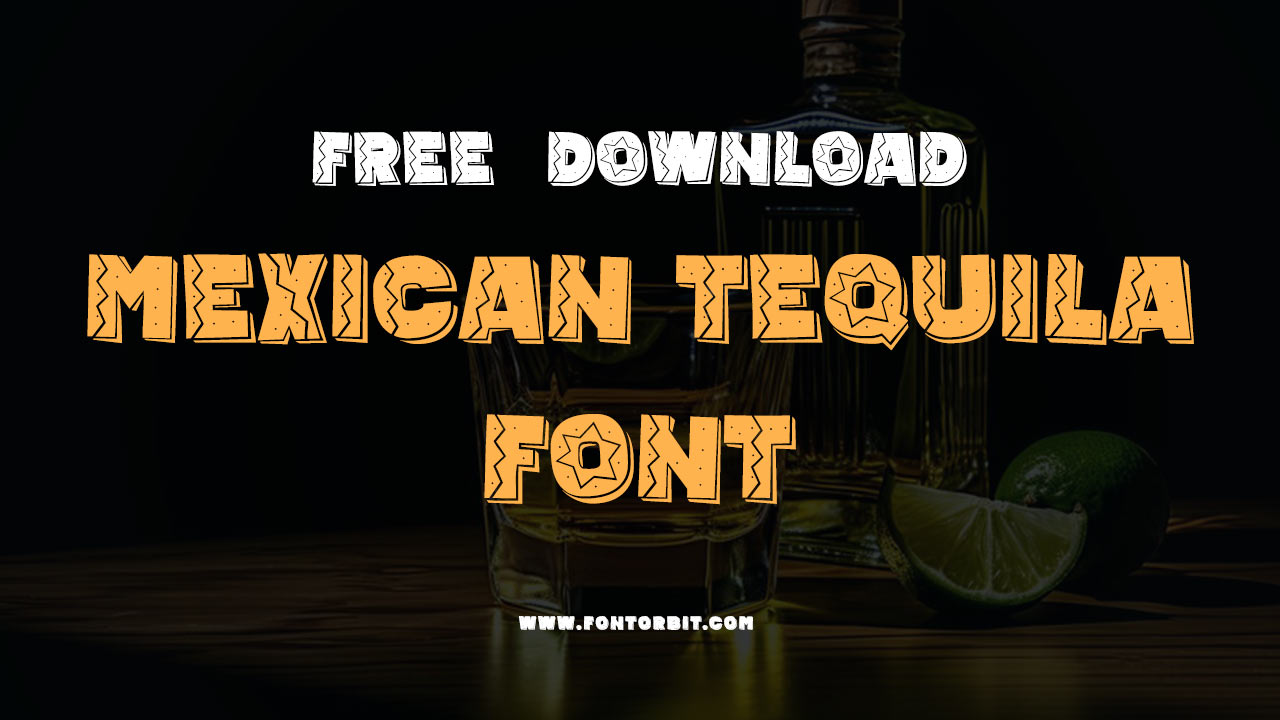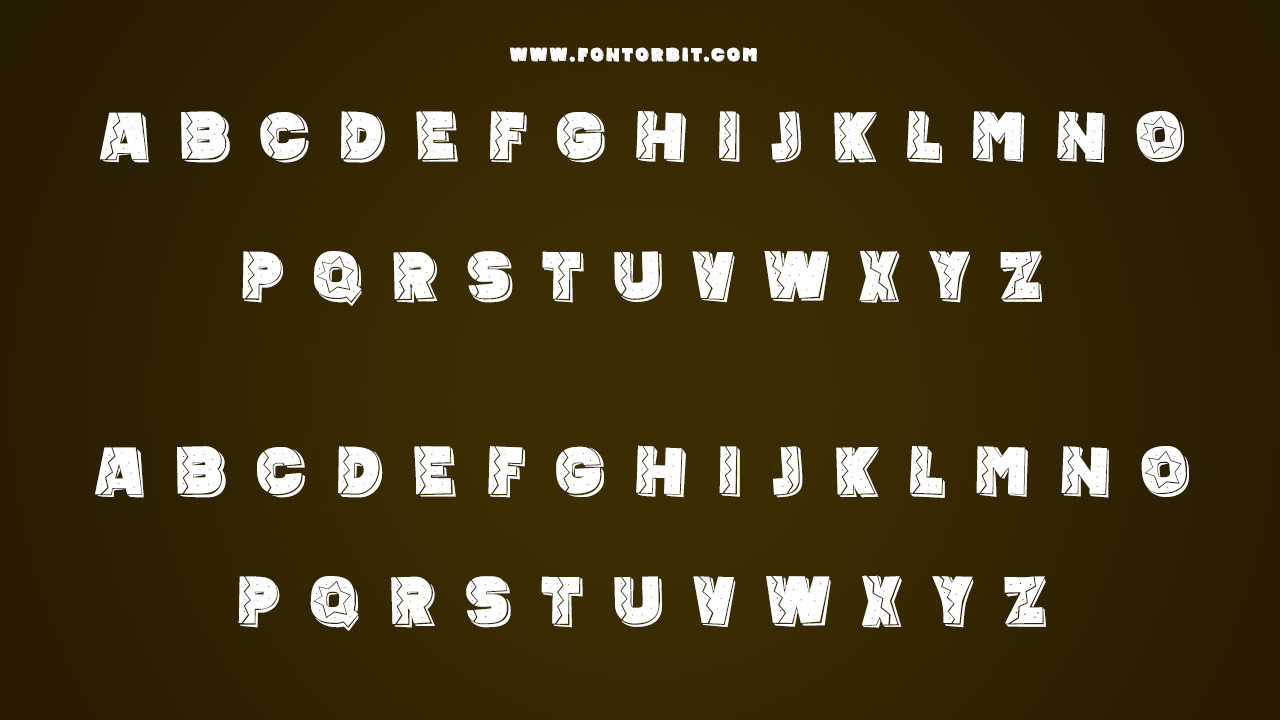
The Mexican Tequila Font, designed by Vladimir Nikolic, is a distinctive typeface that infuses your designs with a vibrant and culturally rich flair. Known for its unique style, this font features a variety of lowercase letters and special characters that bring a festive and spirited touch to any project.
The Mexican Tequila Font Family
- Mexican Tequila Regular
- Mexican Tequila Italic
This decorative typeface stands out with its eye-catching design. Ideal for bold and engaging applications. This typeface features lowercase letters and special characters perfect for festive branding, event invitations, and themed decorations. Its distinctive look is perfect for adding a lively, culturally inspired element to your designs.
- Event Invitations
- Themed Party Decorations
- Cultural Projects
- Graphic Design
Mexican Tequila Font excels in creating vibrant and culturally themed designs. Its unique characters make it suitable for projects that require a touch of festivity and cultural richness, such as themed events, festive decorations, and branding materials.
Mexican Tequila Font’s vibrant and culturally inspired design makes it an excellent choice for festive and themed applications. Its distinctive style ensures it adds a unique touch to a variety of projects, capturing attention and conveying a sense of fun and cultural celebration.
1.What Is The Mexican Tequila Font?
2.How To Choose The Right Size For Mexican Tequila Font?
Mexican Tequila Font is versatile and can be used in various sizes, but it is especially effective in larger sizes where its distinctive characters and festive design elements stand out.
3.What Are The Key Features Of The Mexican Tequila Font?
The font features a vibrant, culturally inspired design with lowercase letters and unique characters, making it ideal for adding a lively and festive touch to your designs.
4.How To Use The Mexican Tequila Font In Design?
Use Mexican Tequila Font to create eye-catching branding, themed event invitations, and festive decorations. Its unique style adds a touch of cultural flair to any project.
5.What Are The International Language Support Options For The Mexican Tequila Font?
Mexican Tequila Font supports Latin-based languages, making it suitable for a variety of culturally themed and festive projects.